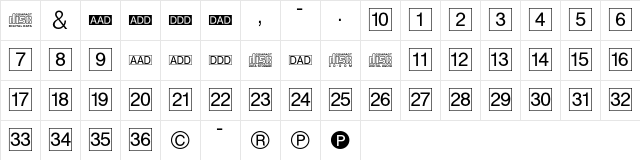
DesignCD Regular
Design Context for DesignCD Typeface
DesignCD takes a measured approach to typography — its balanced proportions and neutral character make it a reliable workhorse for both digital and print work.